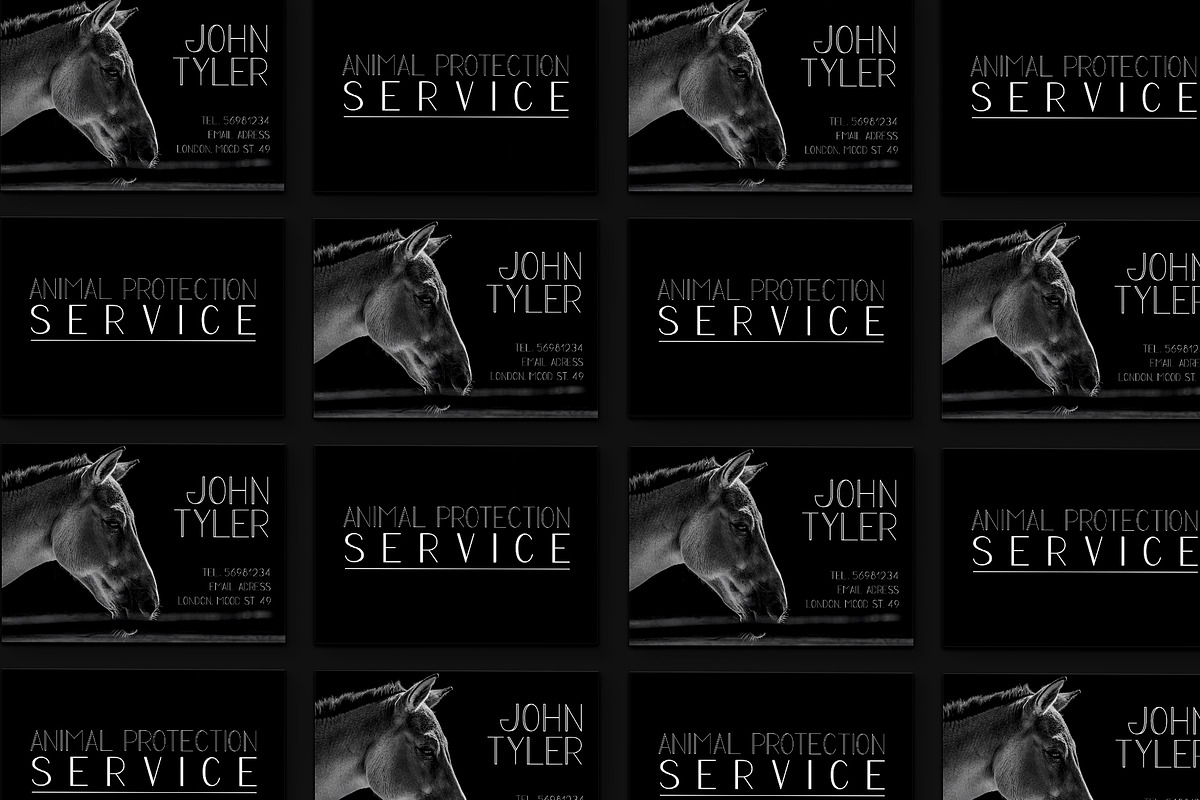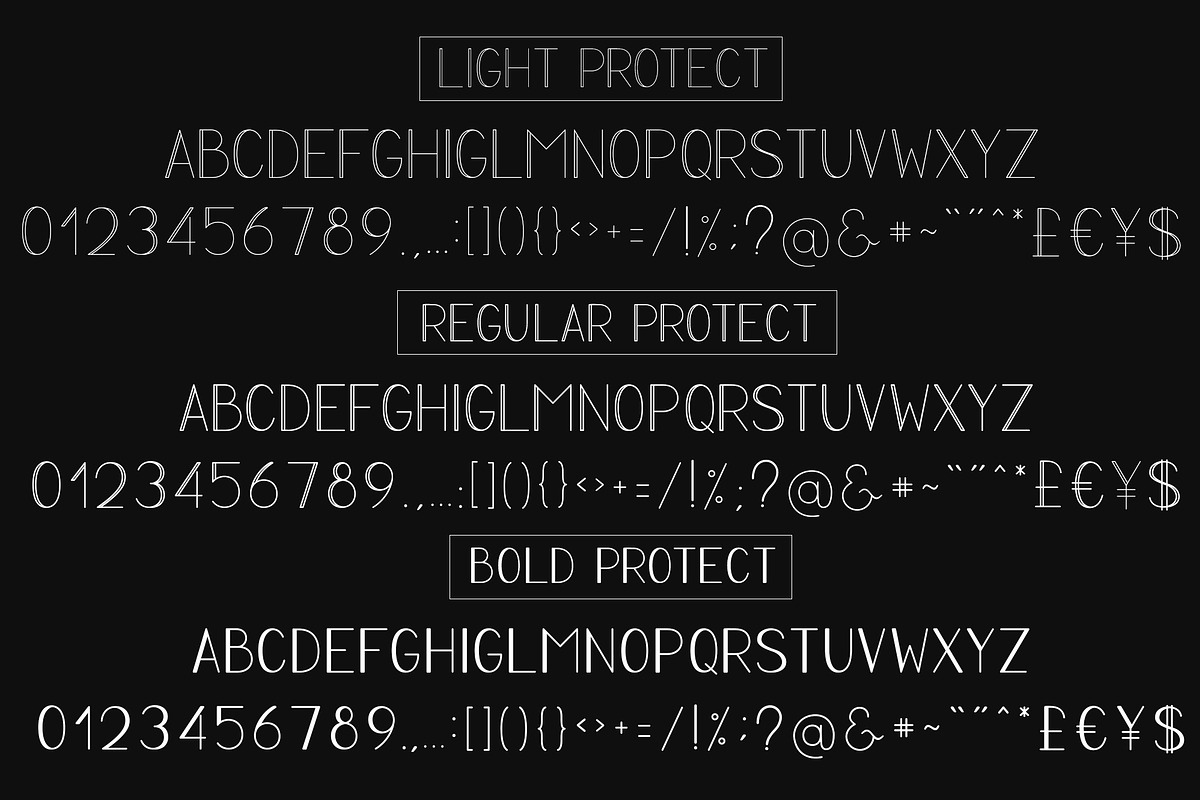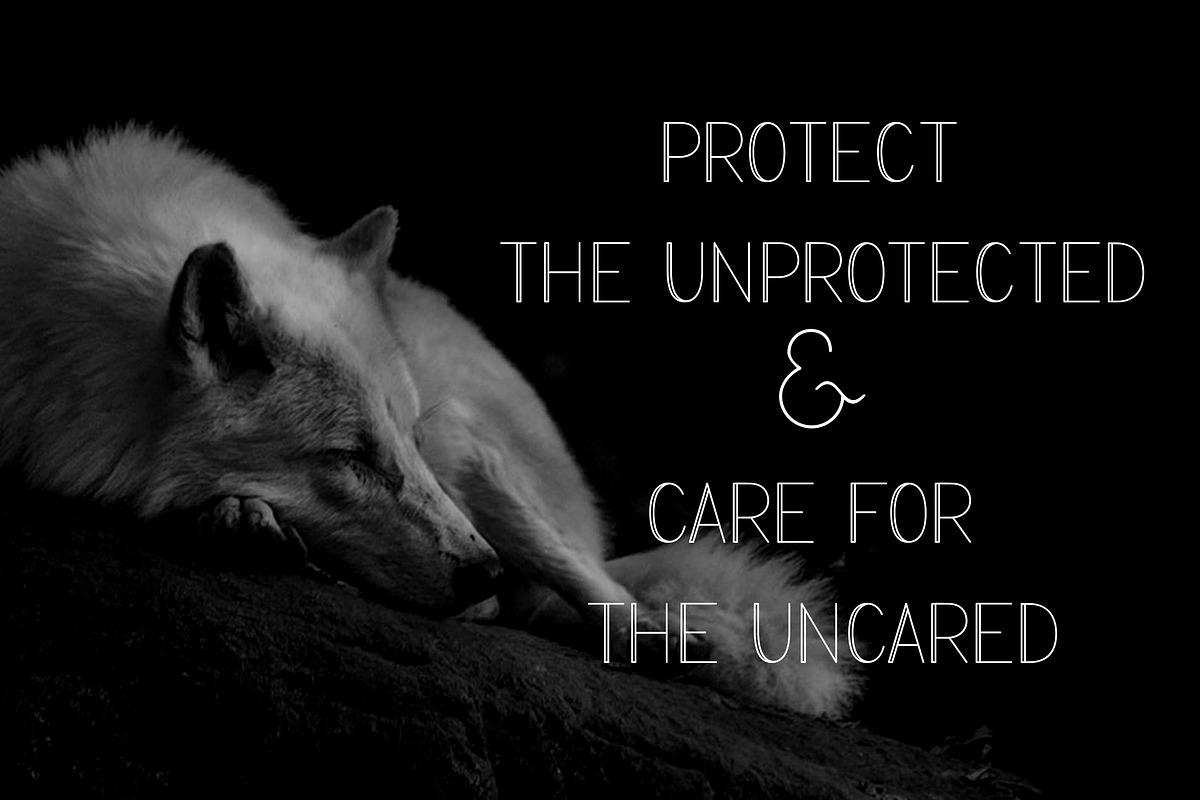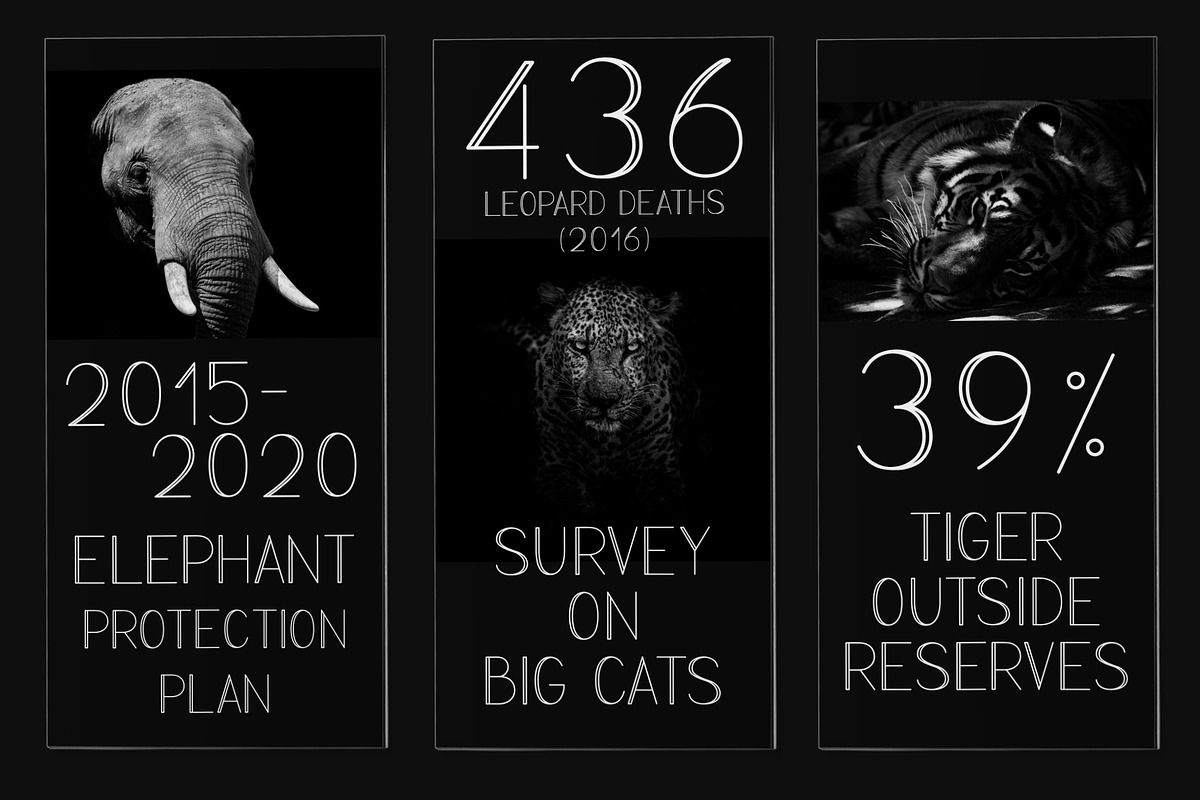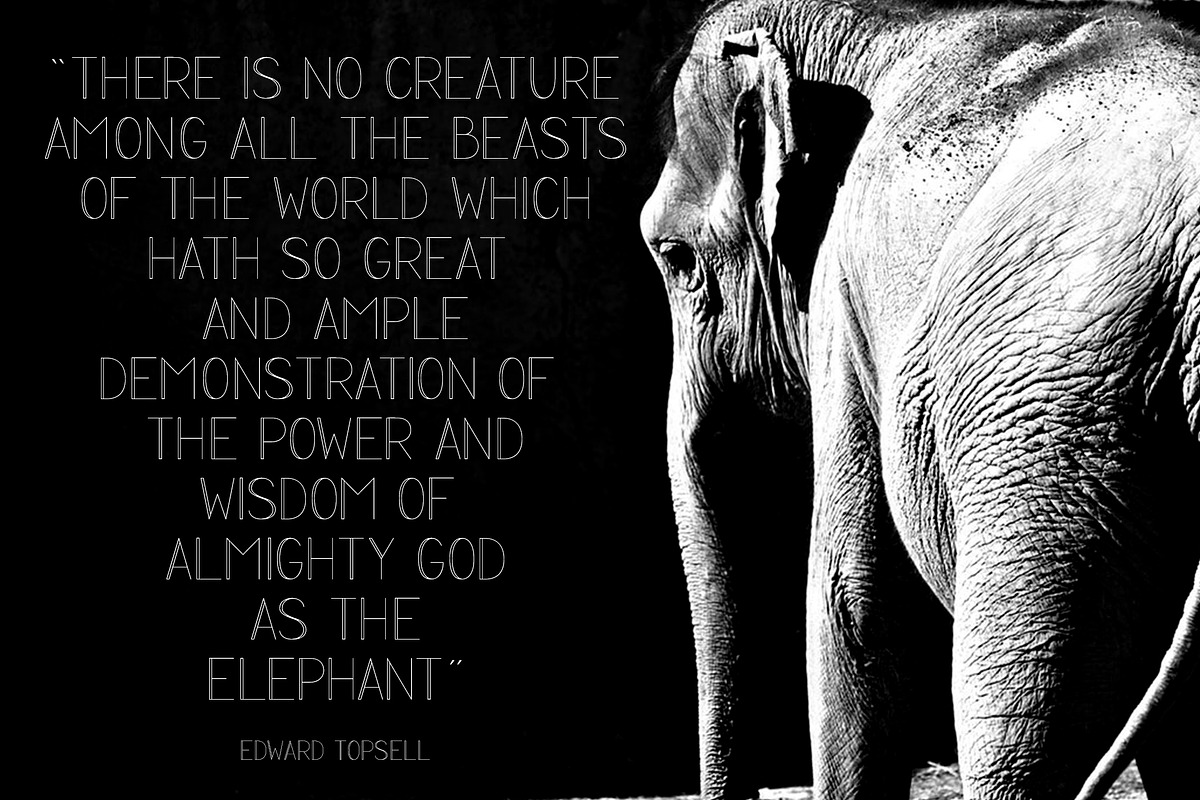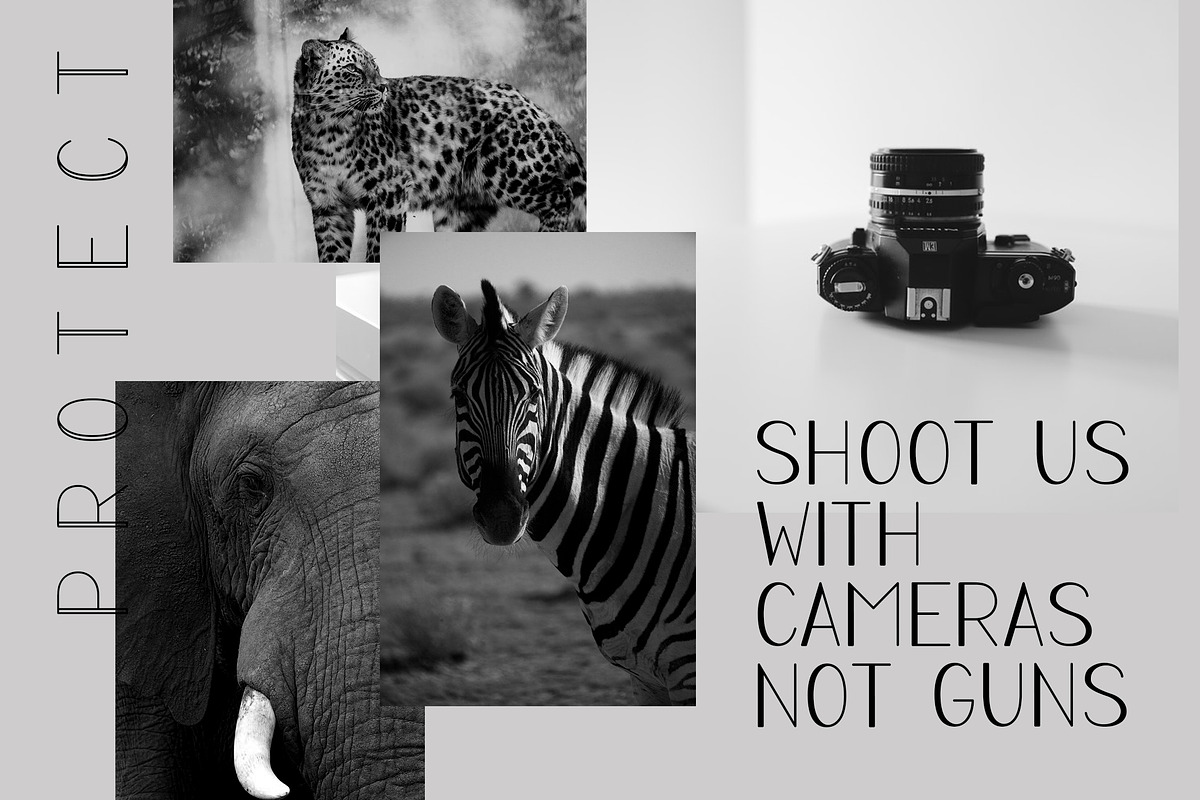
PROTECT Sans Serif Font Family
PROTECT is very actual, universal and modern font! A simple but significant! With minimal but elegant design! The owner of endless possibilities! Just add modern touch to any projects!
Inspired by the problem of animals protection all over the world i tried to show off all the posibilities of this font with its straight lines and regular shapes. Important to make a note that all opentype kerning pairs are carefully regulated. All letter pairs look perfectly spaced when coupled together whatever you type.
It is perfect for multiple contexts. Works great in posters, logos, headlines, packaging, advertising, branding and so much more. This font will easily help you to create the best elegant or dynamic designs.
Every font has uppercase letters, numbers & basic punctuation, multiligual support (French, German, Italian, Norwegian, Portuguese, Spanish, Swedish, Swiss German).
Why PROTECT Sans Serif Font Family is worth a look
PROTECT Sans Serif Font Family by Anna Zakharchenko fits naturally into Branding, posters, packaging, typography.